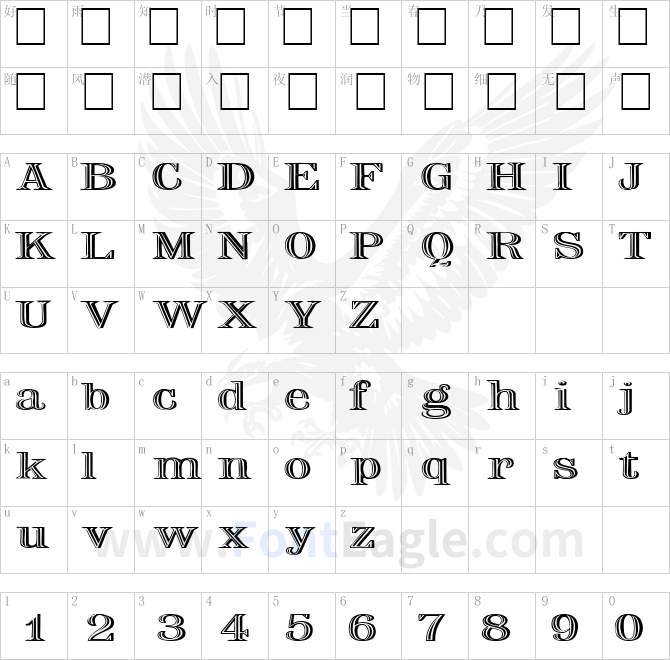
FZ-OUTLINE-6-EX is a great font, widely used in graphic design, single-page menu design, poster design and other fields, and is deeply loved by designers.FZ-OUTLINE-6-EX download.